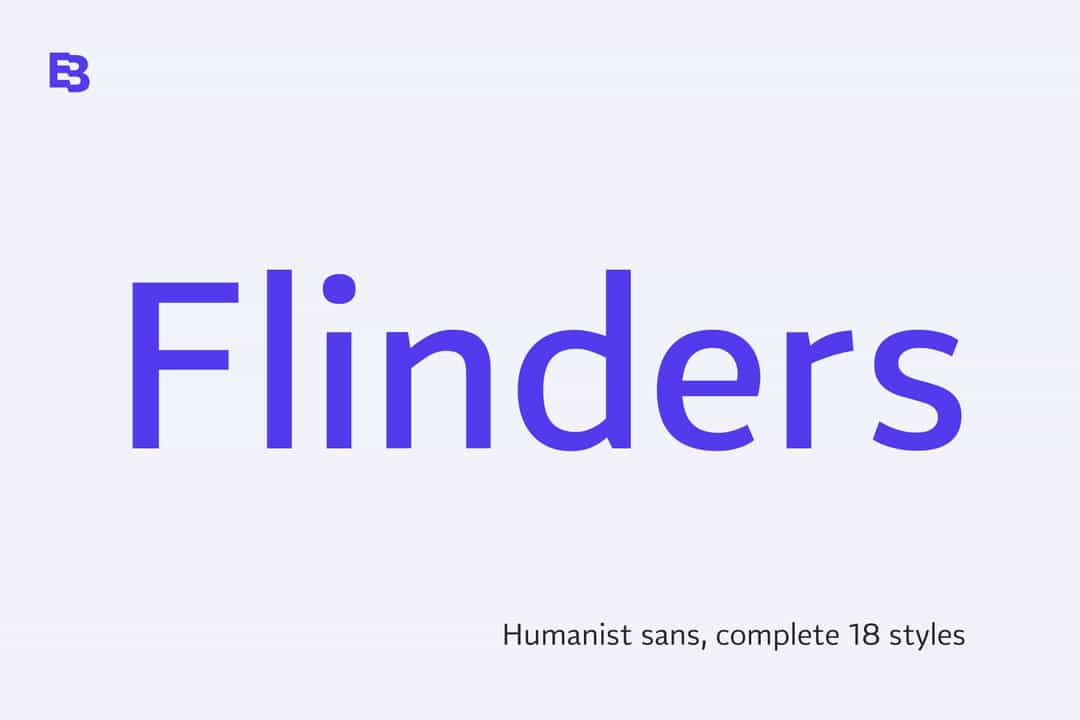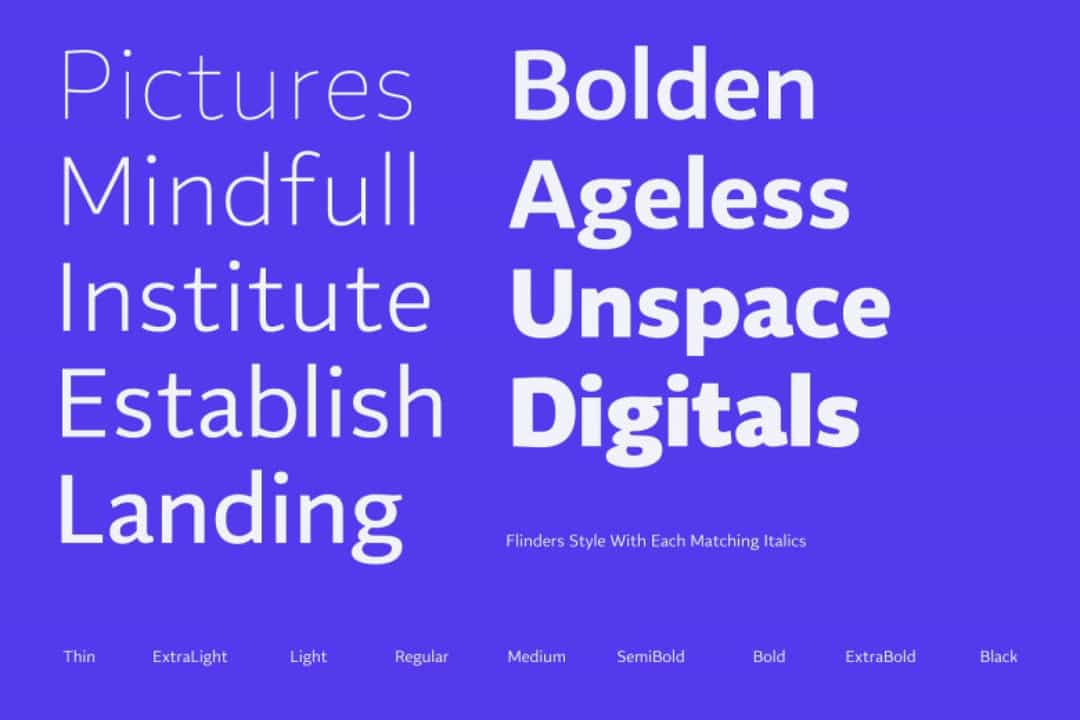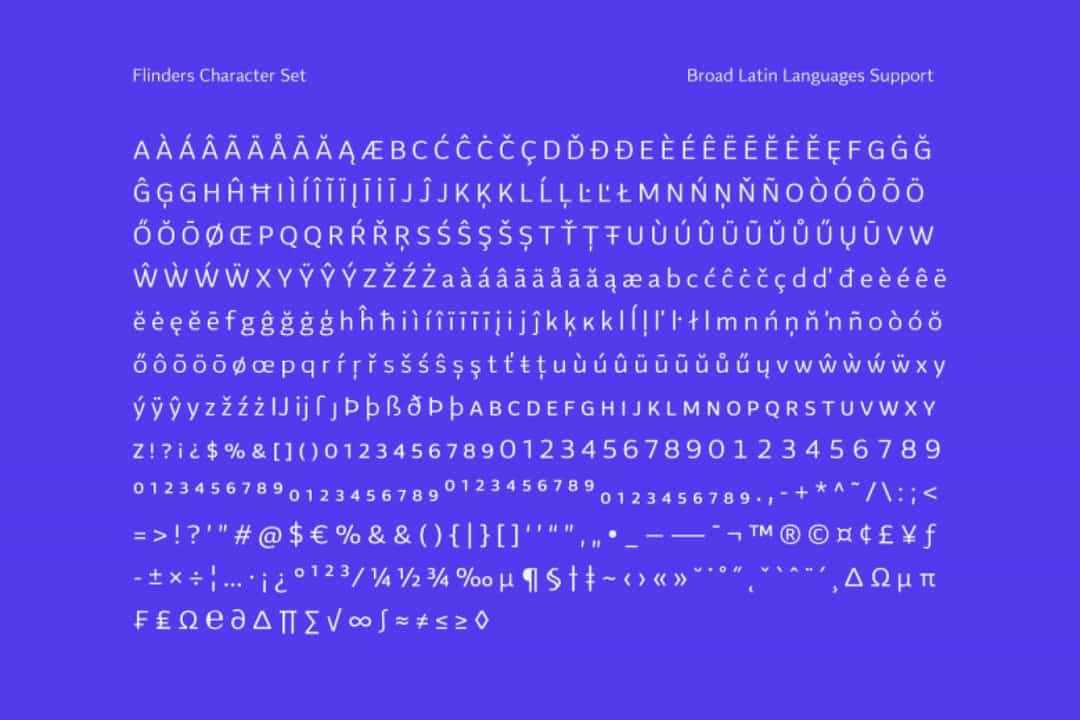
Flinders is a contemporary humanist sans serif font family designed by Eko Bimantara in 2023, featuring letterforms optimized to facilitate ease of reading and legibility. Flinders has various reading purposes in mind and features letterforms with optimized letterforms designed for ease of reading and legibility. Furthermore, Flinders stands out as being a sans serif version of Roman proportions from the past with lower height x-height, subtle strokes with angled stroke ends, wide counters and apertures all making for easy legible reading!